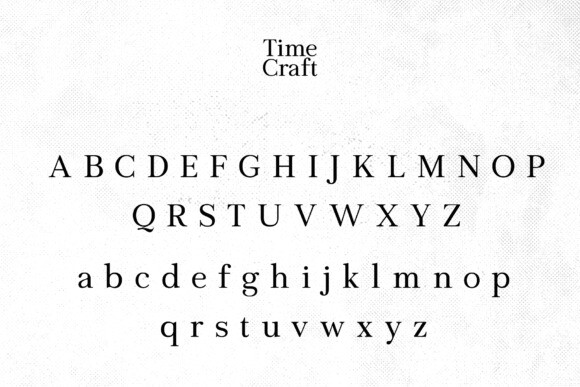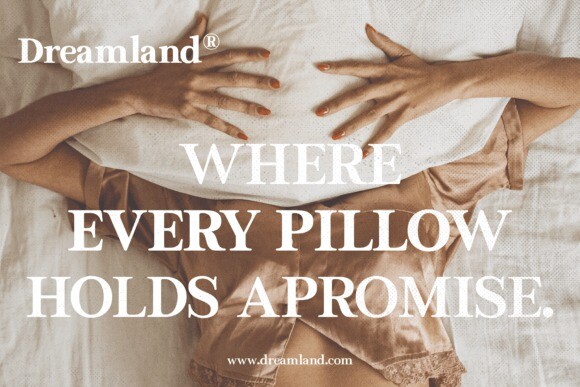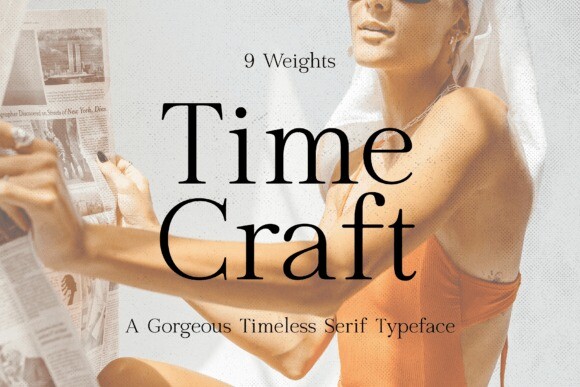
Time Craft Font
Time Craft Font, a typeface that resonates with timeless elegance and modern finesse. This exquisitely crafted serif font is more than just a set of characters; it’s a testament to the enduring beauty of classic type design blended seamlessly with contemporary touches.
Each letter in Time Craft is a masterpiece of design, meticulously sculpted to perfection. From the refined curves to the sharp, distinct serifs, every detail is a celebration of elegance. The balanced proportions and harmonious geometry lend a sense of sophistication that elevates your design work from the ordinary to the extraordinary.
Whether you are a seasoned graphic designer or a professional in search of the perfect typeface, Time Craft is your ideal companion. Its versatility shines in a multitude of applications – from the pages of a luxury magazine to the branding of high-end products. It’s perfect for creating captivating headlines, elegant editorial content, sophisticated branding, and much more.
Time Craft is not just a font; it’s a playground for your creativity. Its unique blend of traditional serifs with modern nuances makes it an excellent choice for projects that require a touch of class without sacrificing contemporary appeal. It’s a font that speaks to the audience with clarity, elegance, and a subtle hint of innovation.